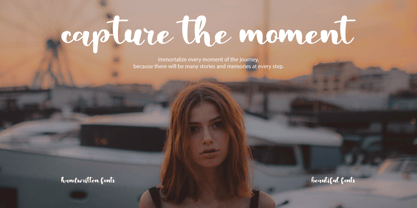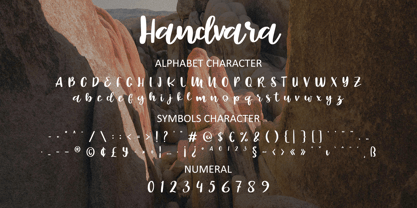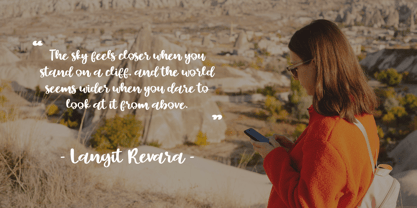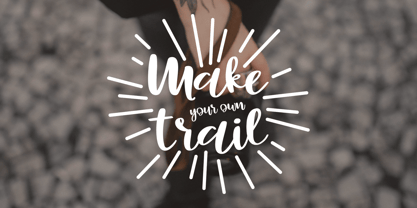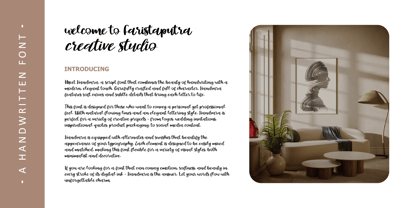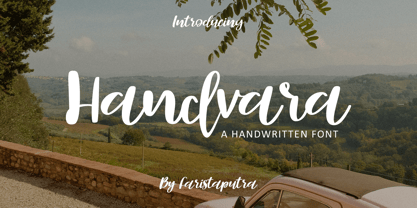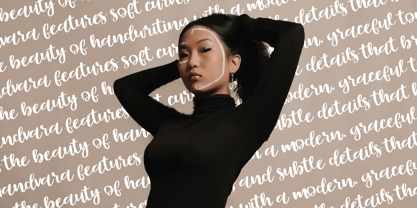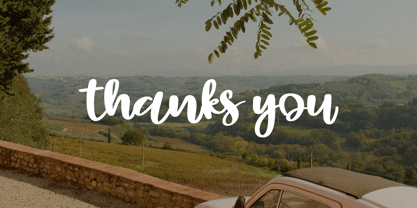
FA Handvara
by Faristaputra
The FA Handvara Font Family was designed by Frederik Aristaputra and published by Faristaputra. FA Handvara contains 3 styles and family package options. More about this family
Handvara is an elegant handlettering font created with a soft and characteristic hand touch. The lines flow smoothly, giving a personal yet neat impression. Suitable for designs that want to appear elegant, such as invitations, logos, packaging, or quotes.
With a modern classic style, Handvara brings a subtle feminine feel without losing the professional impression. Simple, but still has a strong visual appeal.